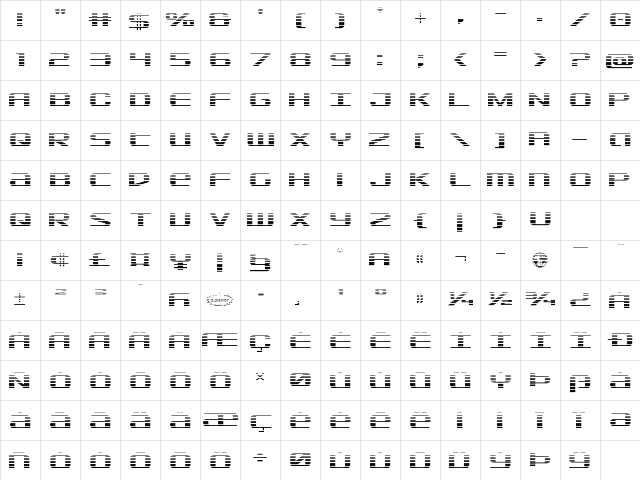
SDF Gradient Regular
Design Context for SDF Gradient
SDF Gradient is a composed and adaptable typeface that performs quietly and consistently across a wide range of design contexts.